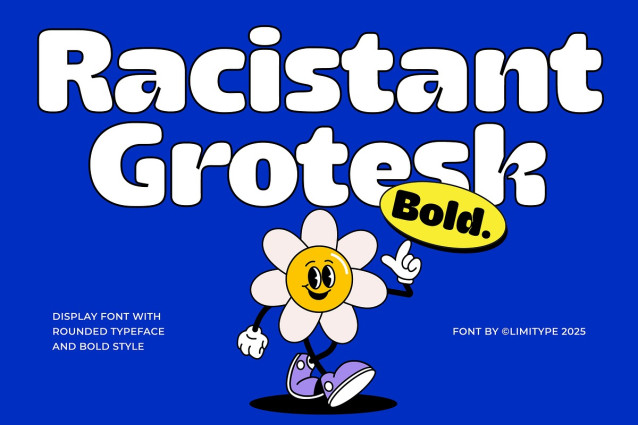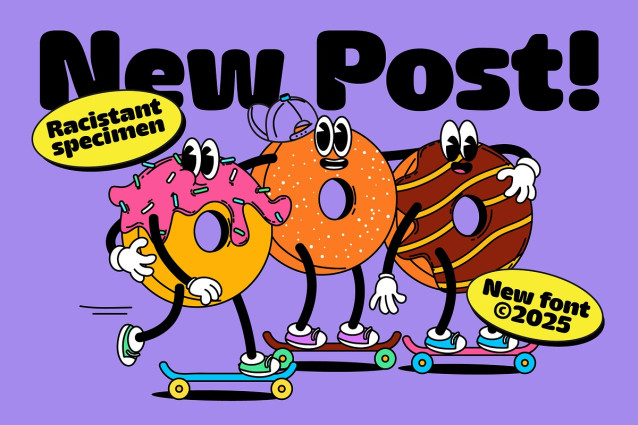
Racistant Grotesque Font
Racistant Grotesque Font is a modern display font featuring a smooth, rounded style that gives it a friendly yet professional look. Unique inktrap details on several characters add personality and make it stand out. Perfect for large, eye-catching titles or headlines that need to be bold, clear, and modern without feeling too rigid.